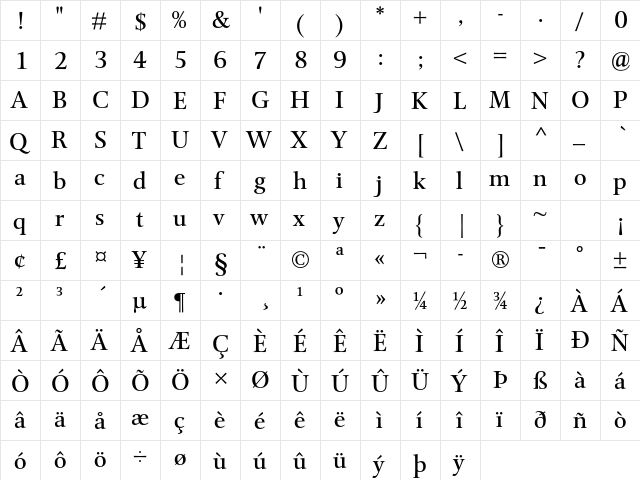
Mentor Std Regular
| Designer | Michael Harvey and Andy Benedek |
Design Context for Mentor Std Typeface
Mentor Std is a composed and adaptable typeface that performs quietly and consistently across a wide range of design contexts.